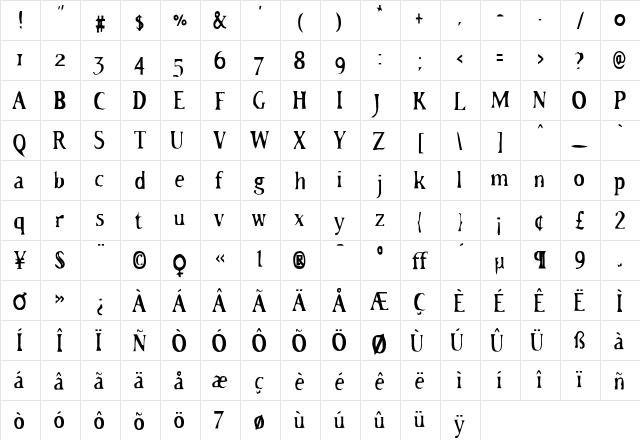
HateNote Regular
Design Context for HateNote Typeface
HateNote is a composed and adaptable typeface that performs quietly and consistently across a wide range of design contexts.
Pro Tip: Use HateNote in both headline and body roles to test its range before committing to a single application.